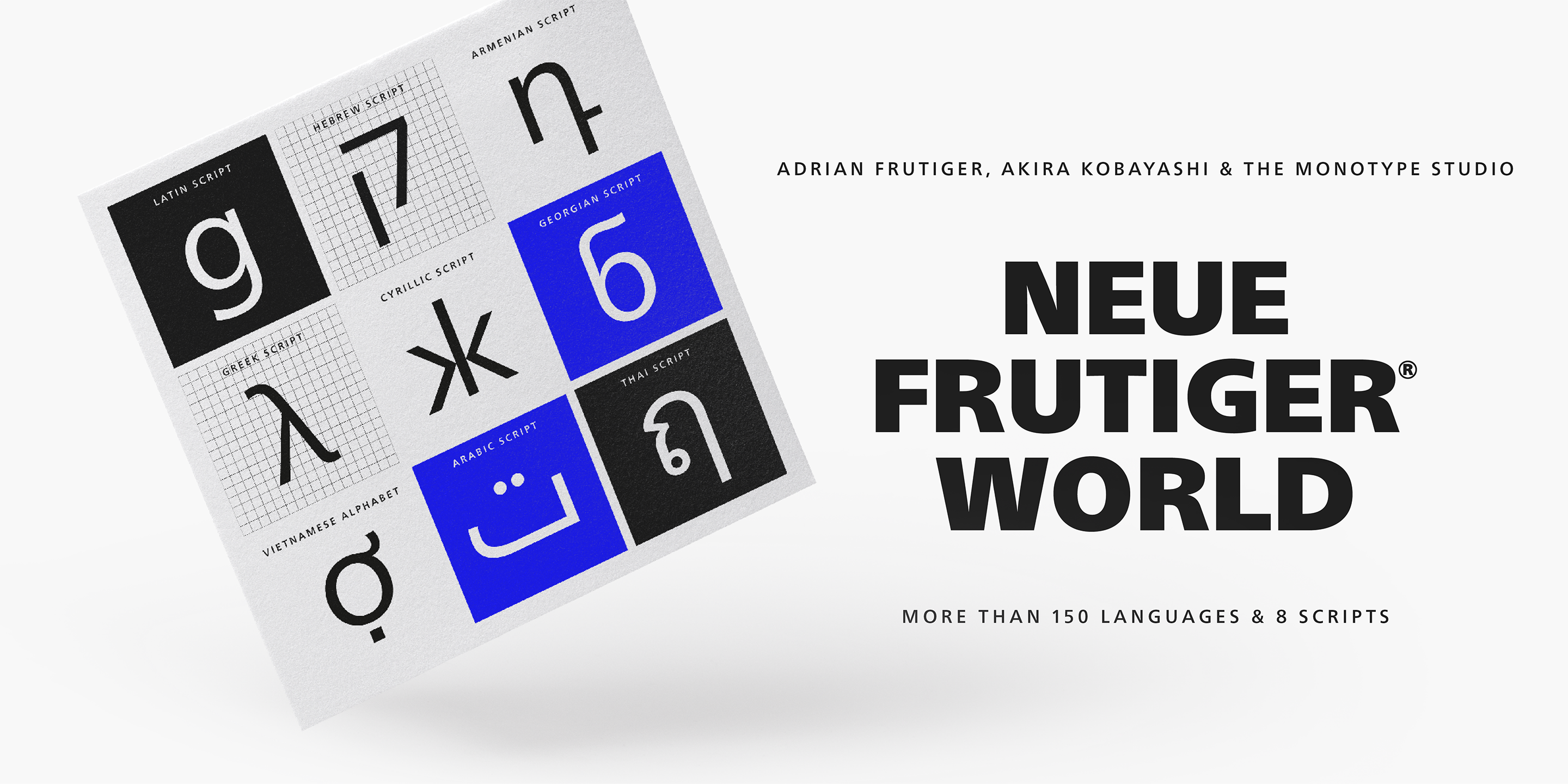
This comprehensive sans-serif typeface is perfect for international corporations, global communications, multilingual websites, airport signage, public transportation systems, healthcare institutions, educational materials, government documents, and universal logo design.
Neue Frutiger World Font brings excitement to your design projects with its exceptional versatility and global reach. This evolved sans-serif font features refined letterforms with enhanced multilingual support, making it ideal for organizations that communicate across cultures and languages. The font's humanist characteristics and superior legibility ensure clear communication while its neutral personality adapts seamlessly to diverse brand contexts worldwide.
The Neue Frutiger World Font family includes ultra light, light, regular, medium, bold, and black weights, plus condensed variations and italics. This extensive range provides designers with complete typographic flexibility for creating sophisticated international brand systems that work consistently across all global markets and communication platforms.
Connect with audiences worldwide using Neue Frutiger World Font Free Download today. This international typeface combines Swiss design precision with global functionality, making it indispensable for modern multinational communications. Whether you're developing corporate identity systems, creating wayfinding solutions, or designing multilingual publications, this font delivers universal results with its cross-cultural appeal and professional excellence.
The expanded character set supports over 200 languages and writing systems. Download Neue Frutiger World Font now and experience this globally optimized typography solution that bridges cultures and languages with clarity and sophistication.